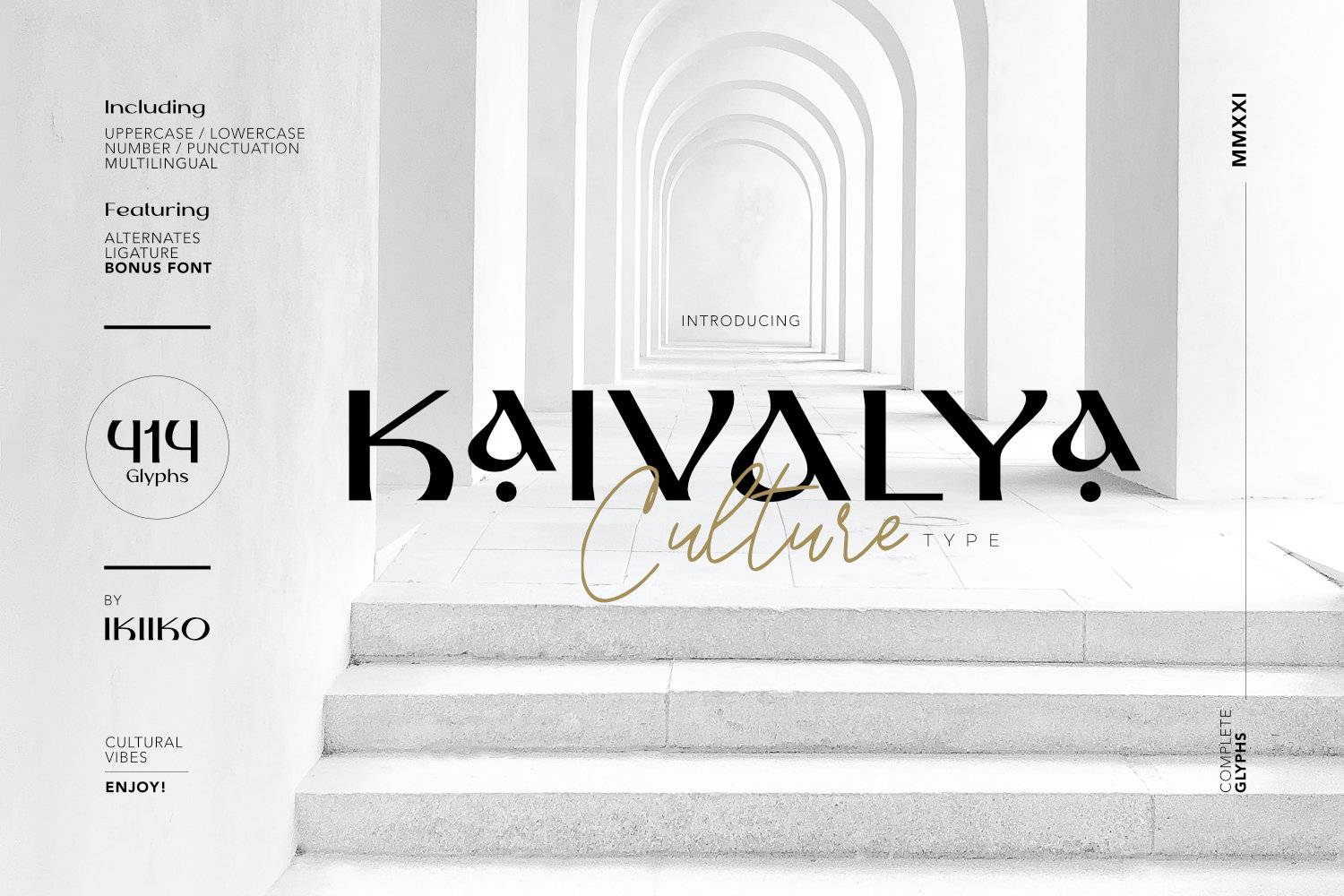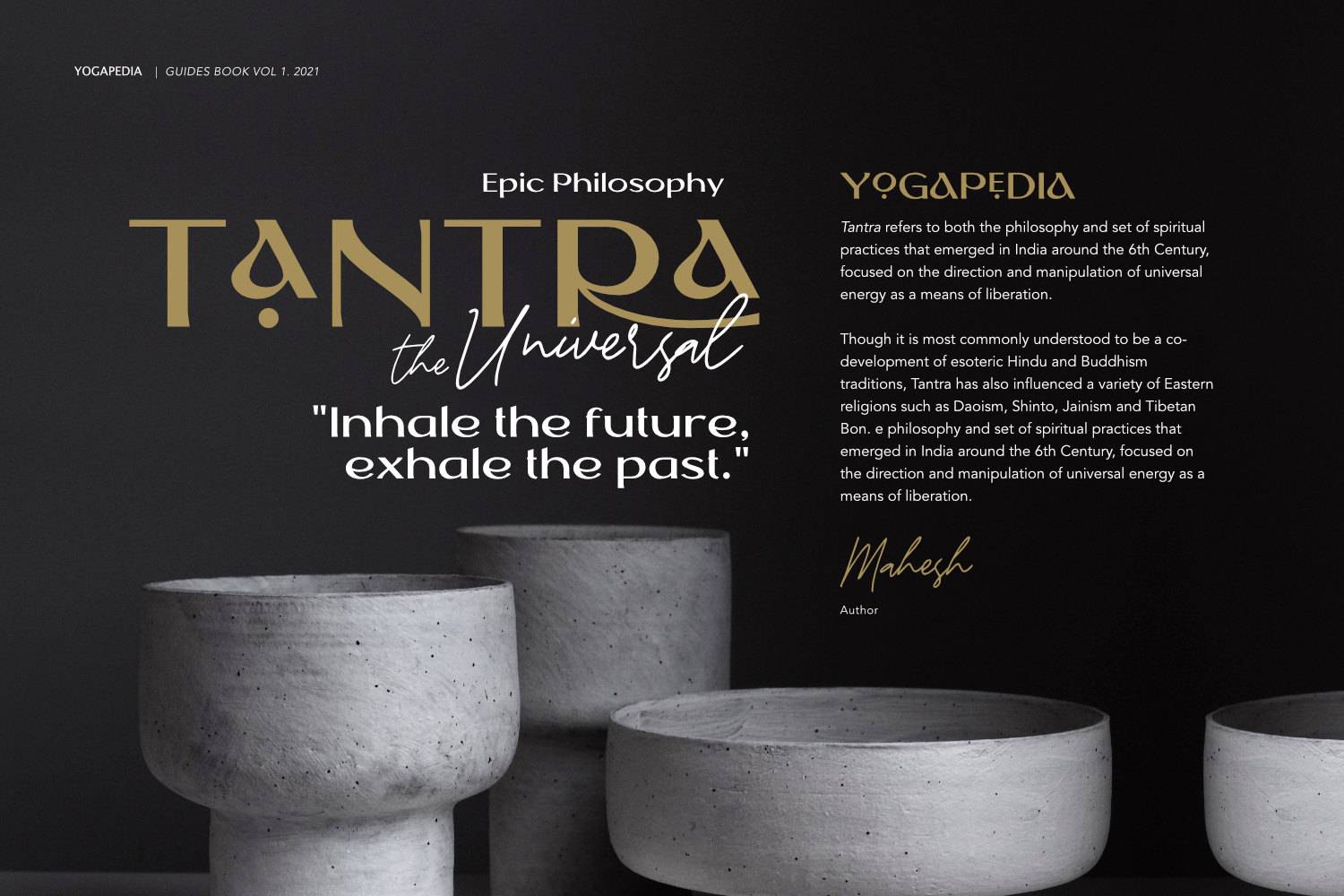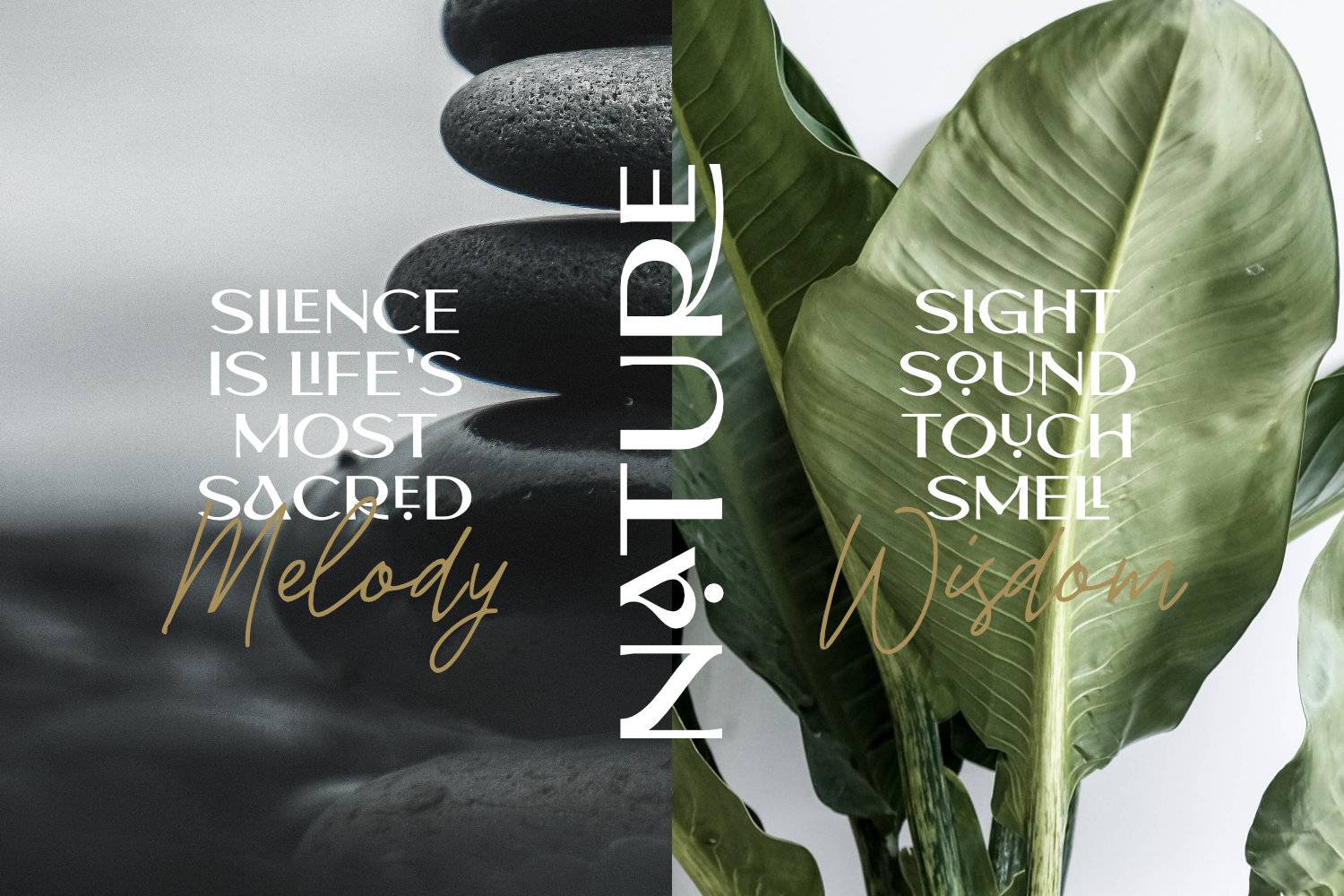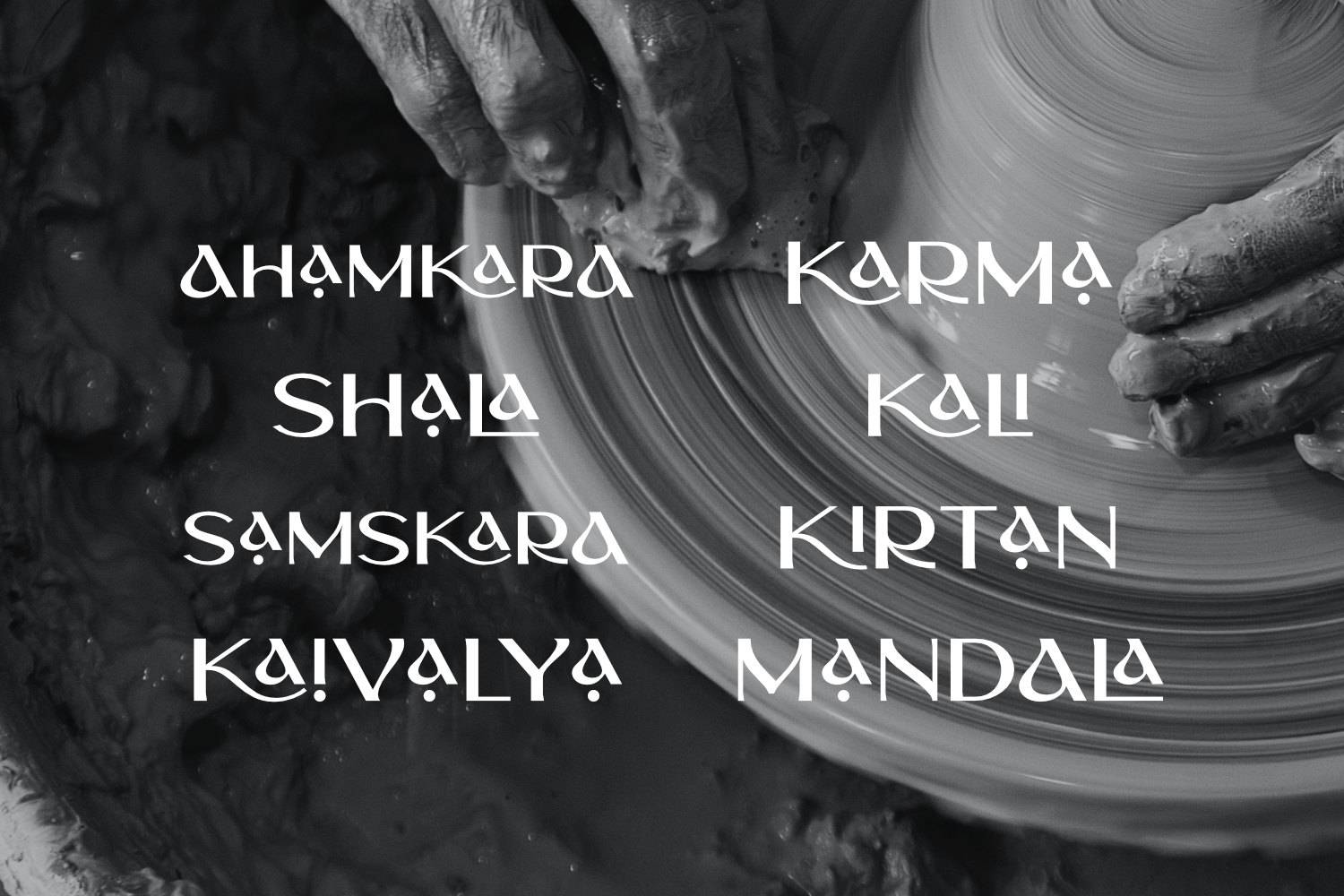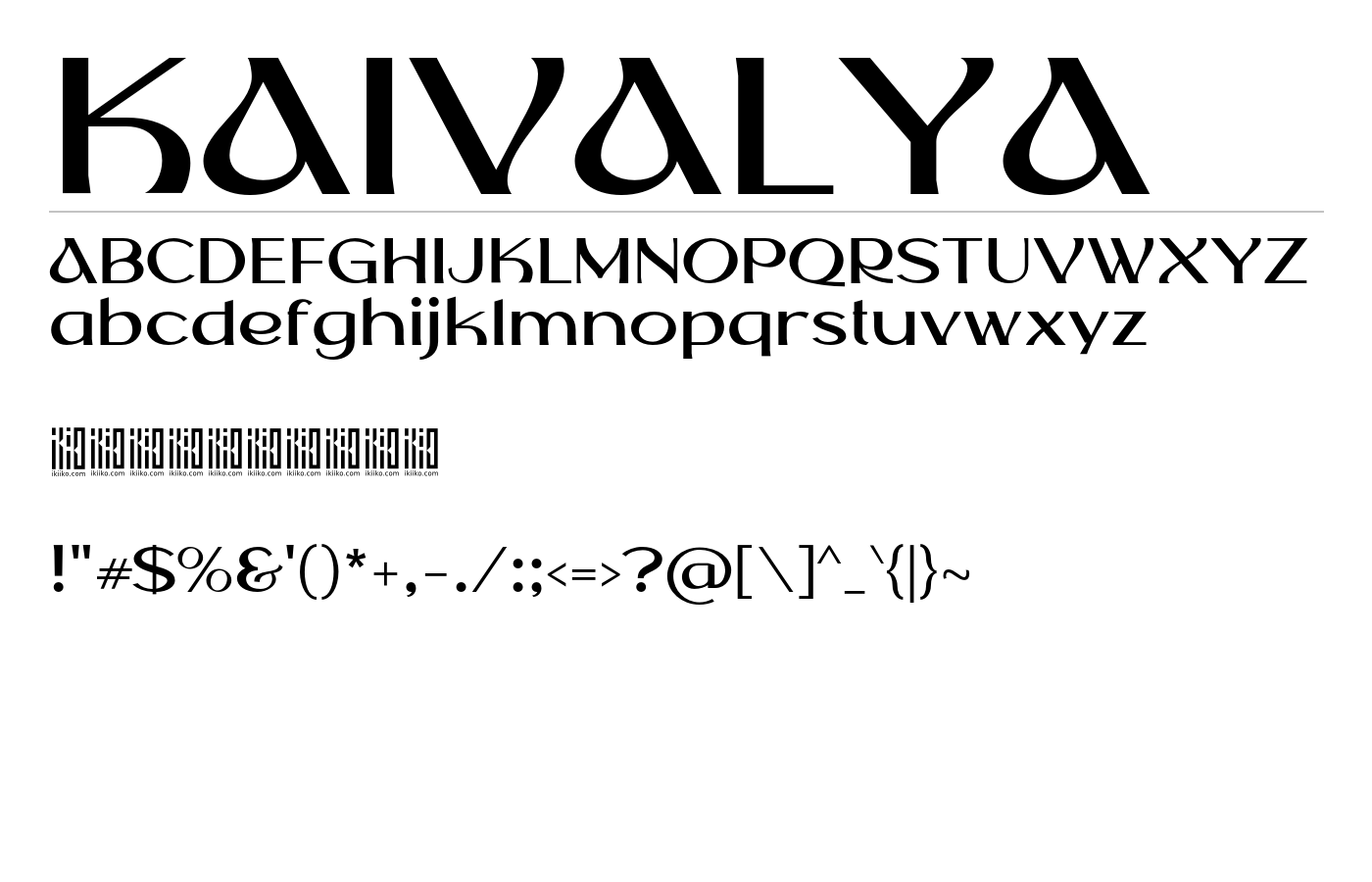
Kaivalya is a distinctive serif font featuring elegant, high-contrast strokes and unique, stylized letterforms that blend modern geometric shapes with subtle calligraphic influences. Its refined and artistic appearance makes it ideal for luxury branding, editorial headlines, and creative projects that seek a sophisticated yet contemporary look. This font stands out with its sharp serifs and dramatic curves, delivering a memorable and stylish impression.
Kaivalya Font
About Kaivalya Font
| Font family | Kaivalya Font |
| Designer | Andhika Pradana, Wahyu Eka Prasetya |